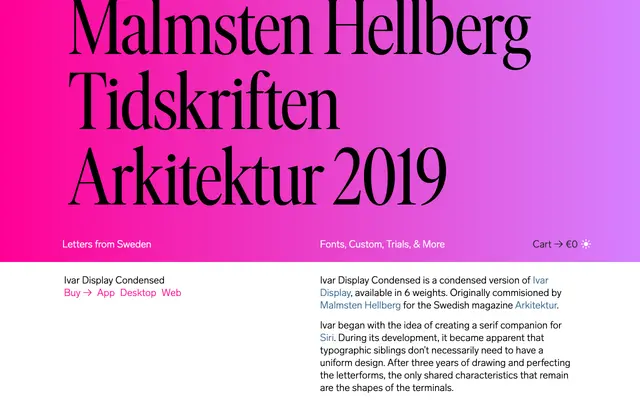
Ivar Display Condensed
A condensed display serif by Göran Söderström, commissioned for Swedish architecture magazine Arkitektur and rooted in the Times-influenced tradition of mid-century text faces.
Originally commissioned by Malmsten Hellberg for the Swedish magazine Arkitektur, this condensed companion to Ivar Display draws on the grace and construction of Times and the dependable text faces of the mid-1900s. Six weights run from Light to Black, giving editorial designers a tight, high-contrast option suited to headlines and feature typography. Part of a broad Ivar family that spans text, headline, fine and soft variants, all sharing only the shapes of their terminals.
Described as strongly influenced by Times and the dependable text faces of the mid-1900s, with roots in 16th and 17th century classical designs; the condensed display cut places it firmly in the transitional serif tradition adapted for headline use.